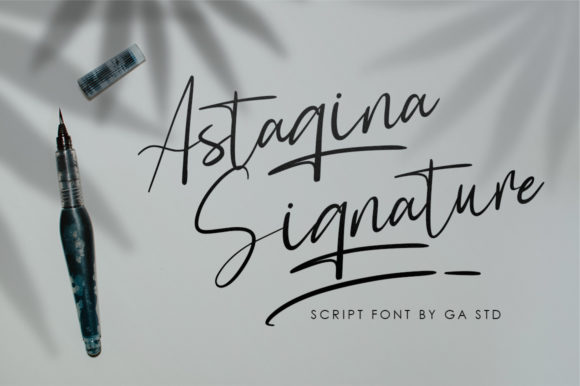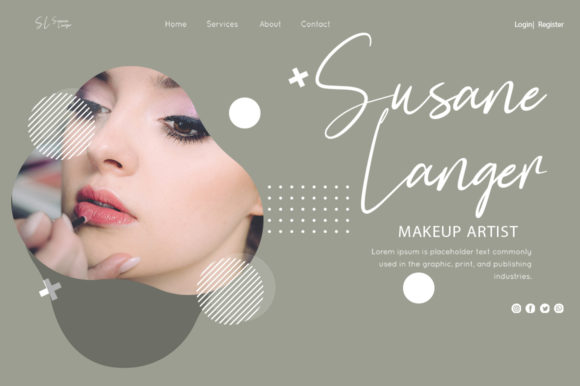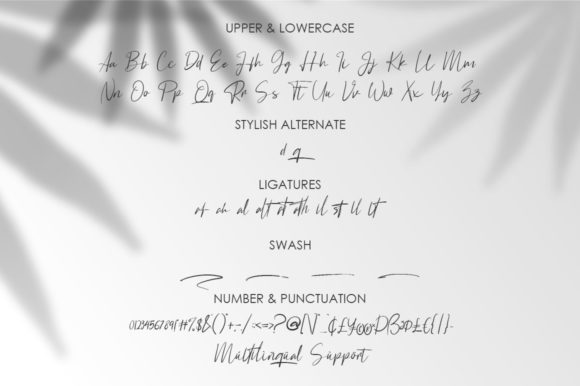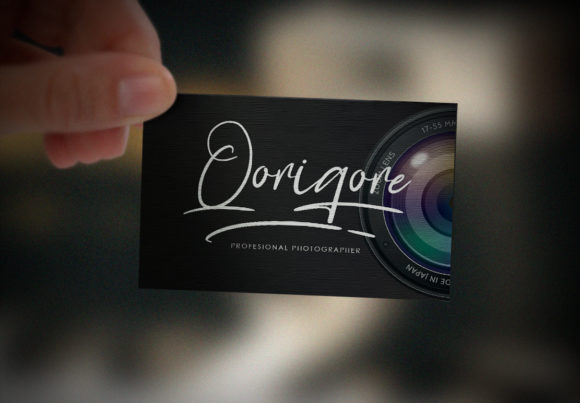
Astagina Signature
About Astagina Signature Font
Astagina Signature is an elegant handwritten font. It is perfect for fashion brand, apparel, wedding invitation, logos, and much more! Whether you’re looking for fonts for Instagram or calligraphy scripts for DIY projects, Astagina Signature will turn any creative idea into a true piece of art!